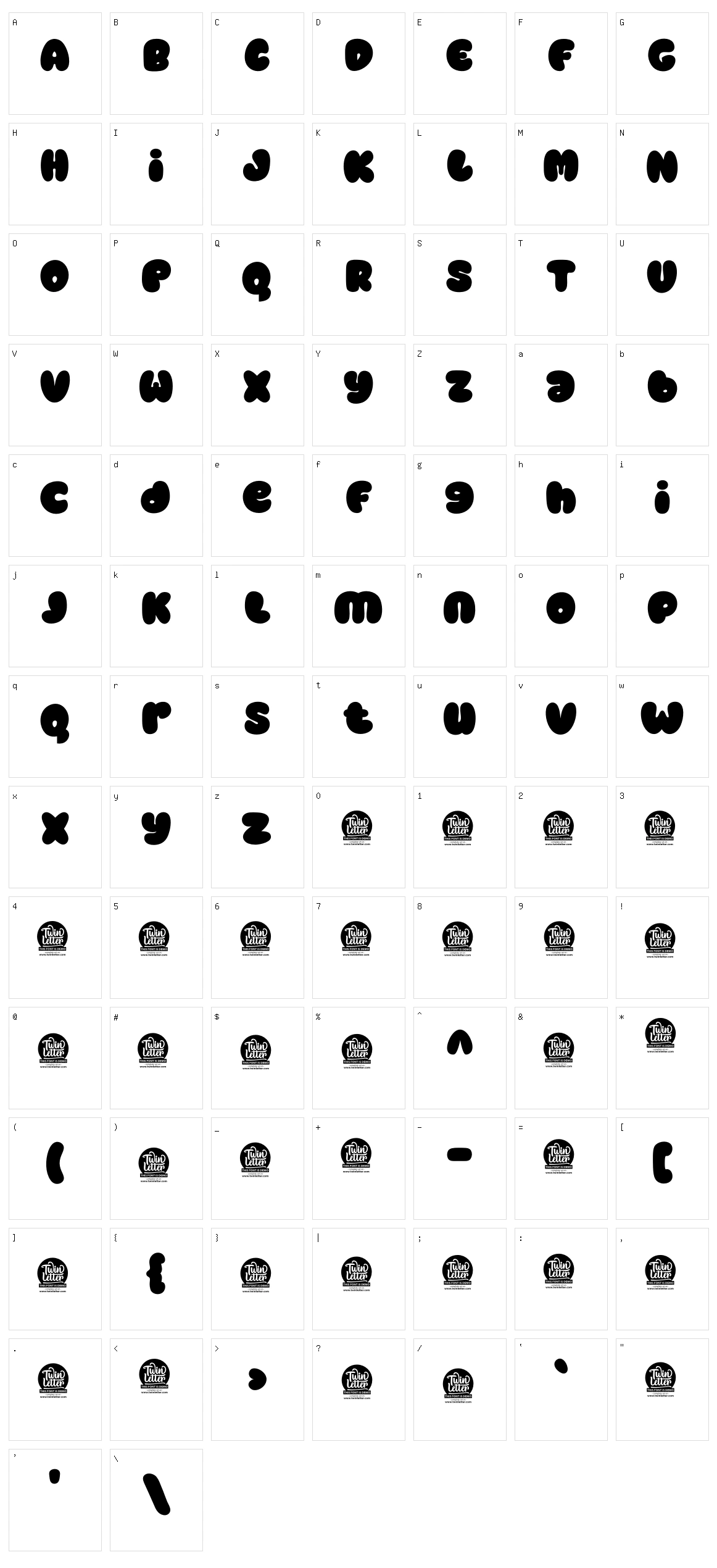
The free font Bamew is carefully designed by twinletter, showcasing a thoughtful balance of creativity and usability and falls under the Cartoon font style. When you download the ZIP file, it contains only 287.87 KB of font files, making it lightweight and quick to download. Please review the license details below to understand permitted usage and distribution rights. If license information is not available, we recommend using this font for personal projects only or contacting the author directly for commercial usage permissions.